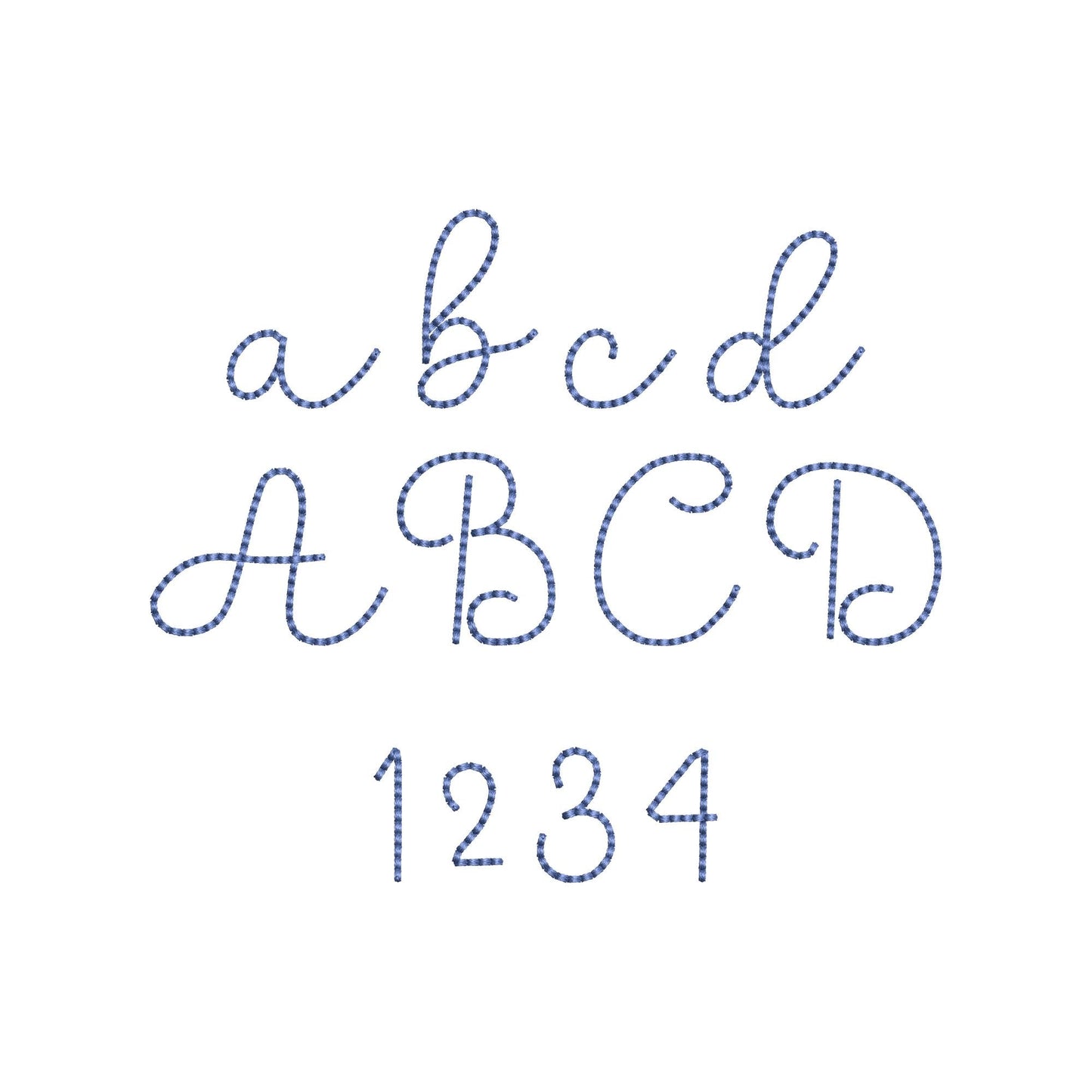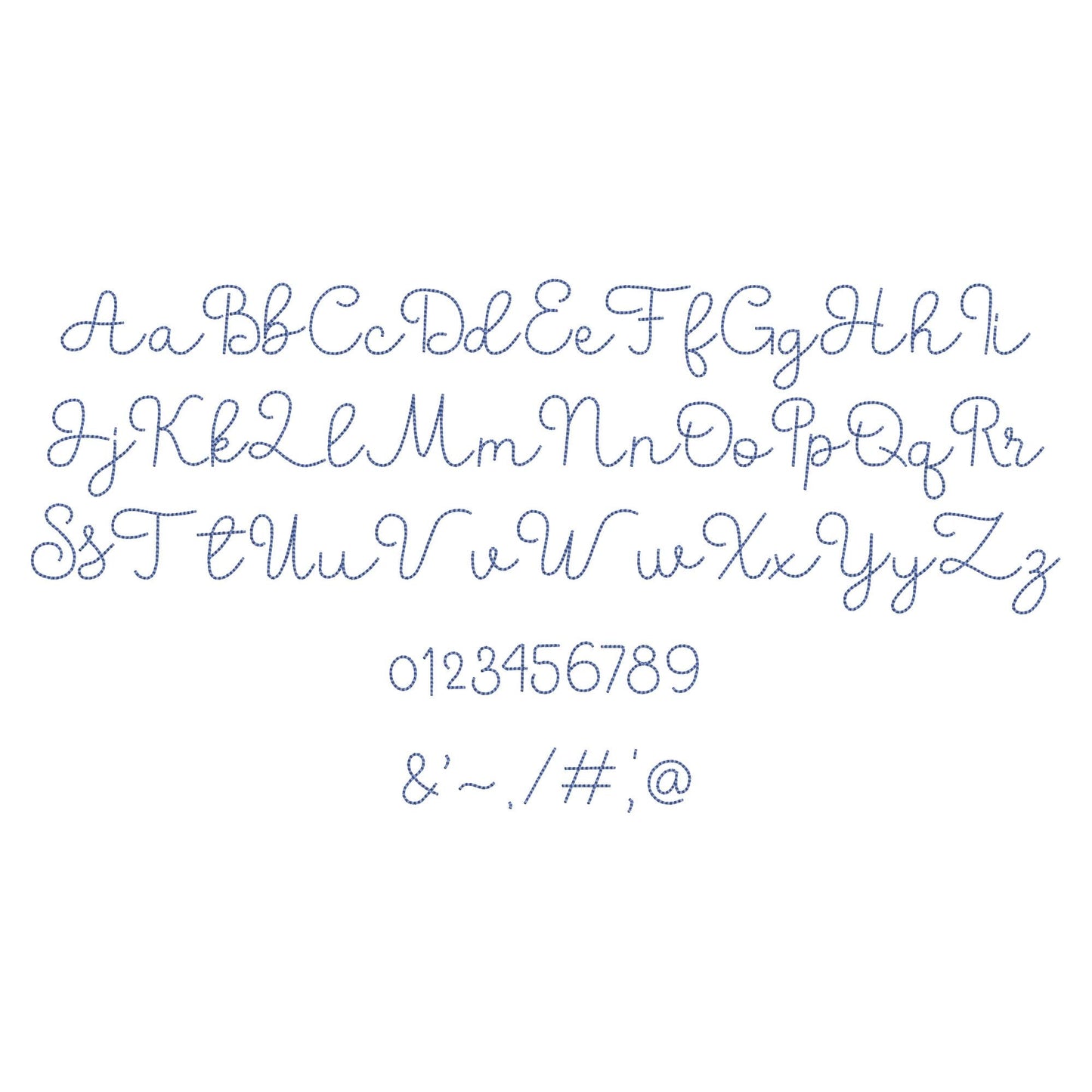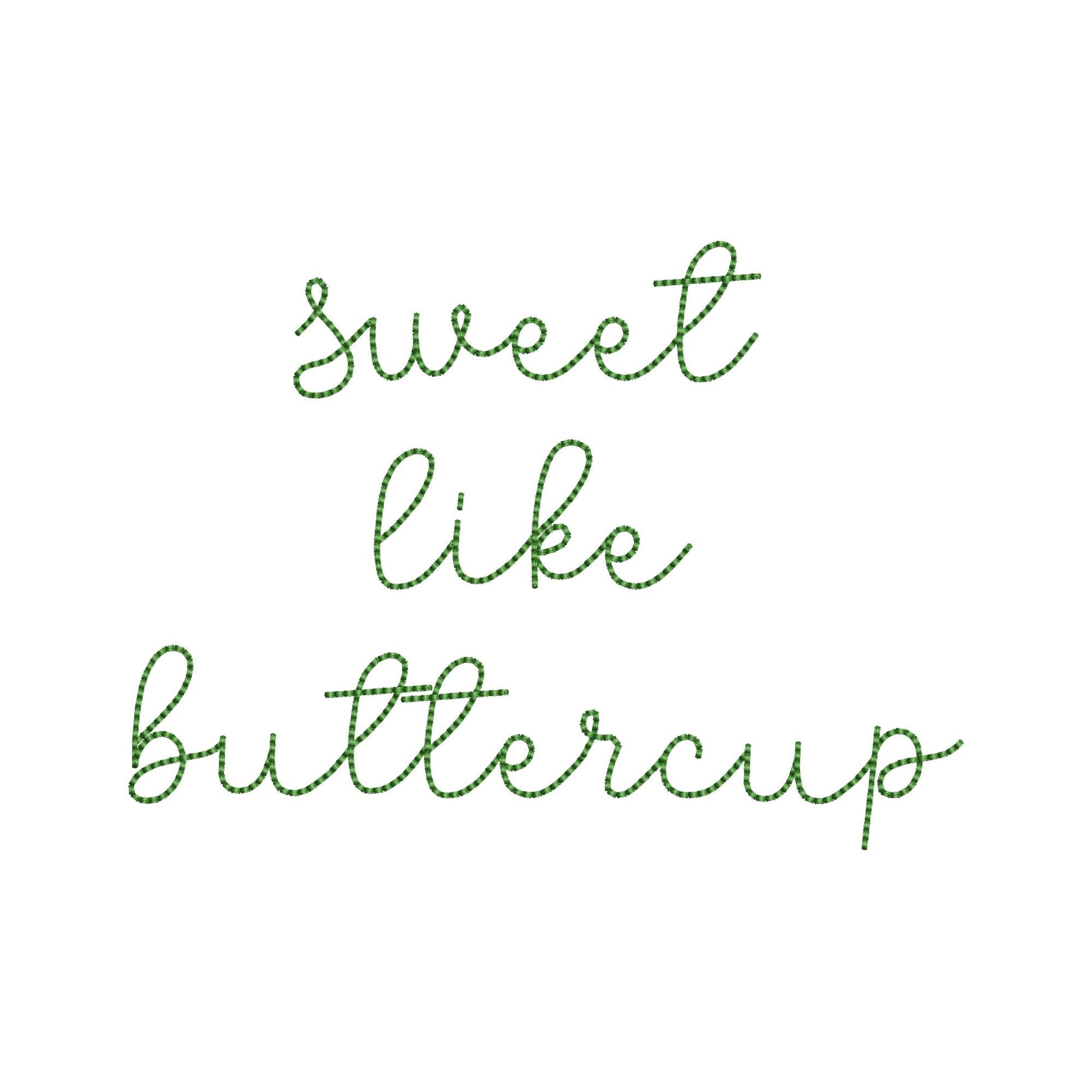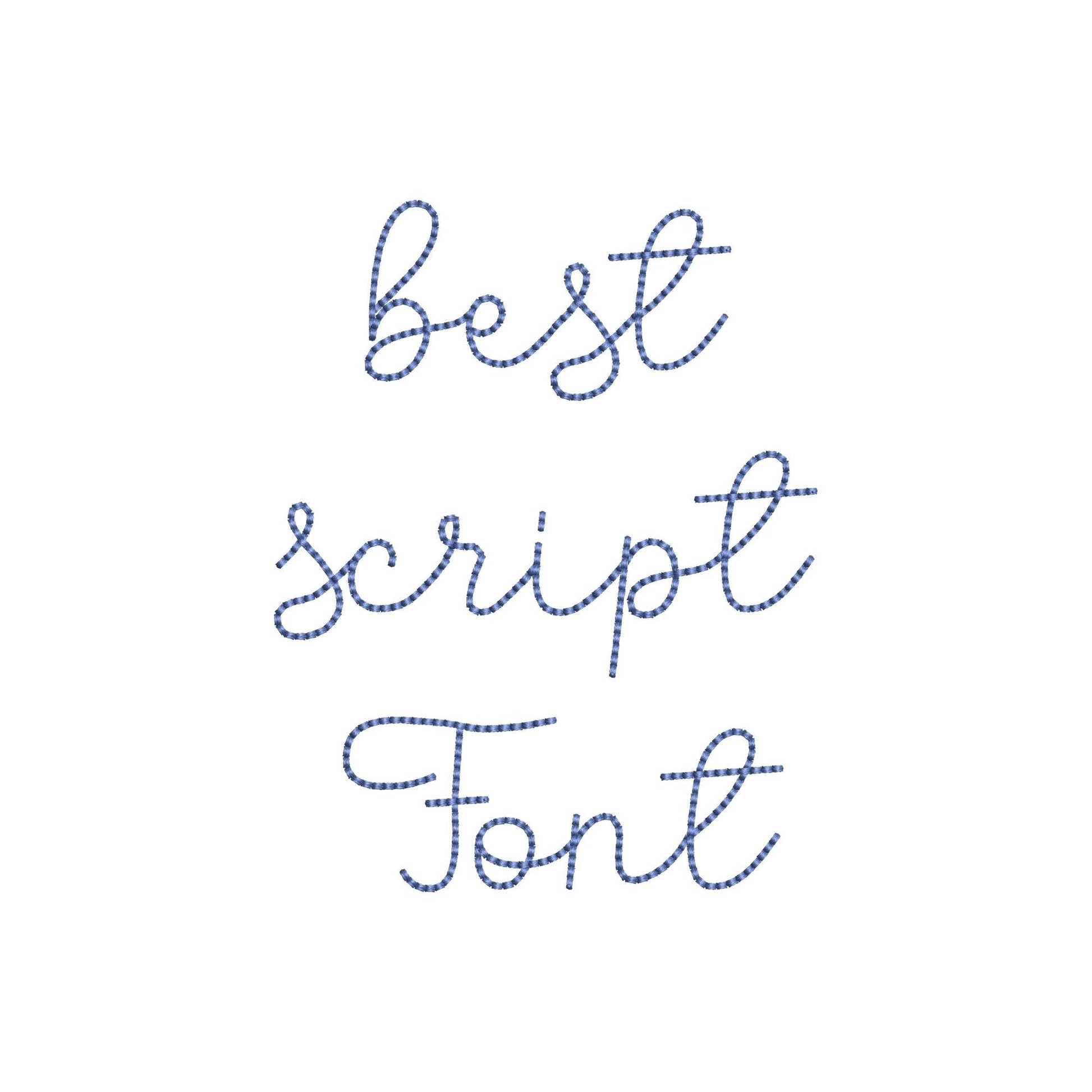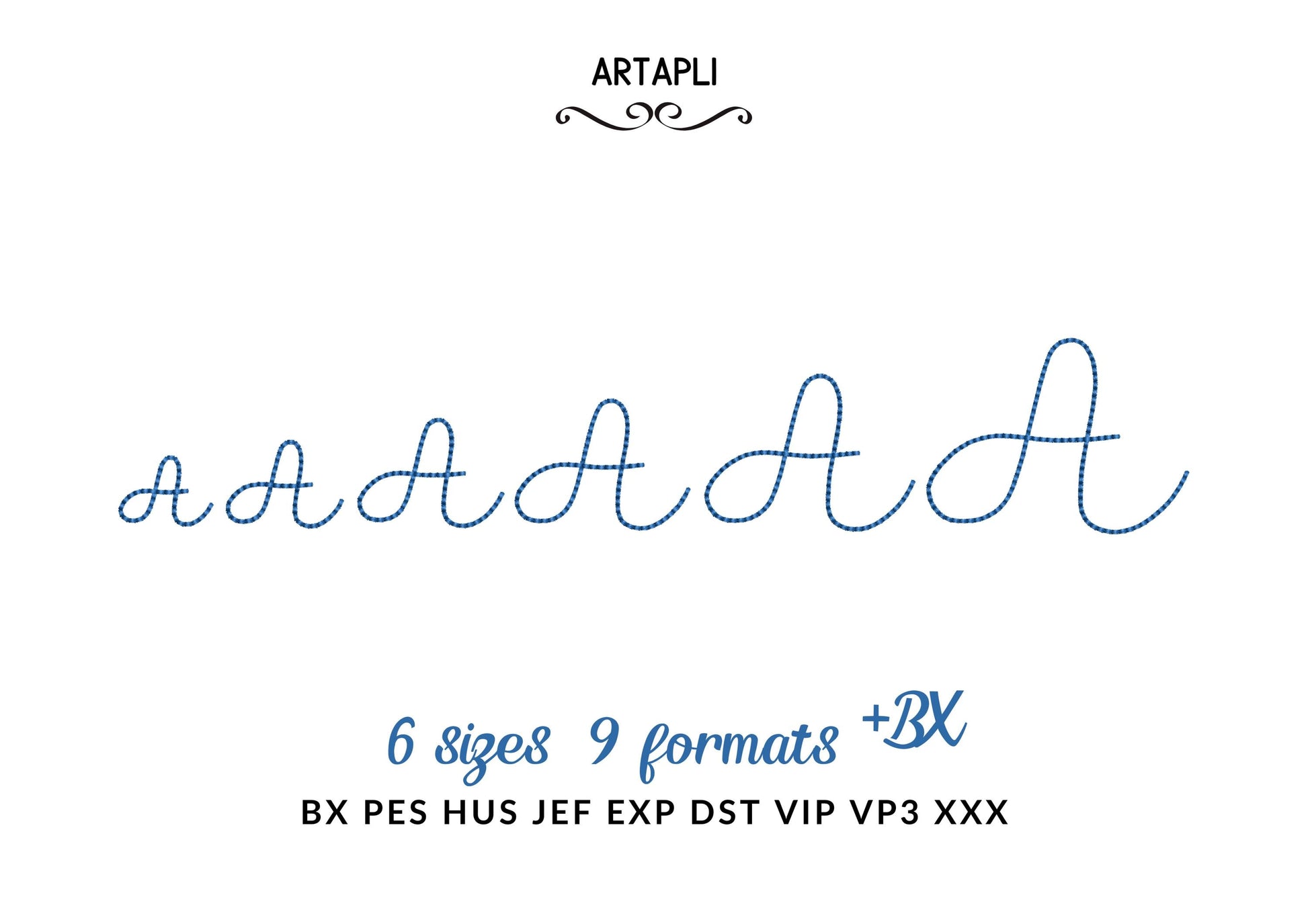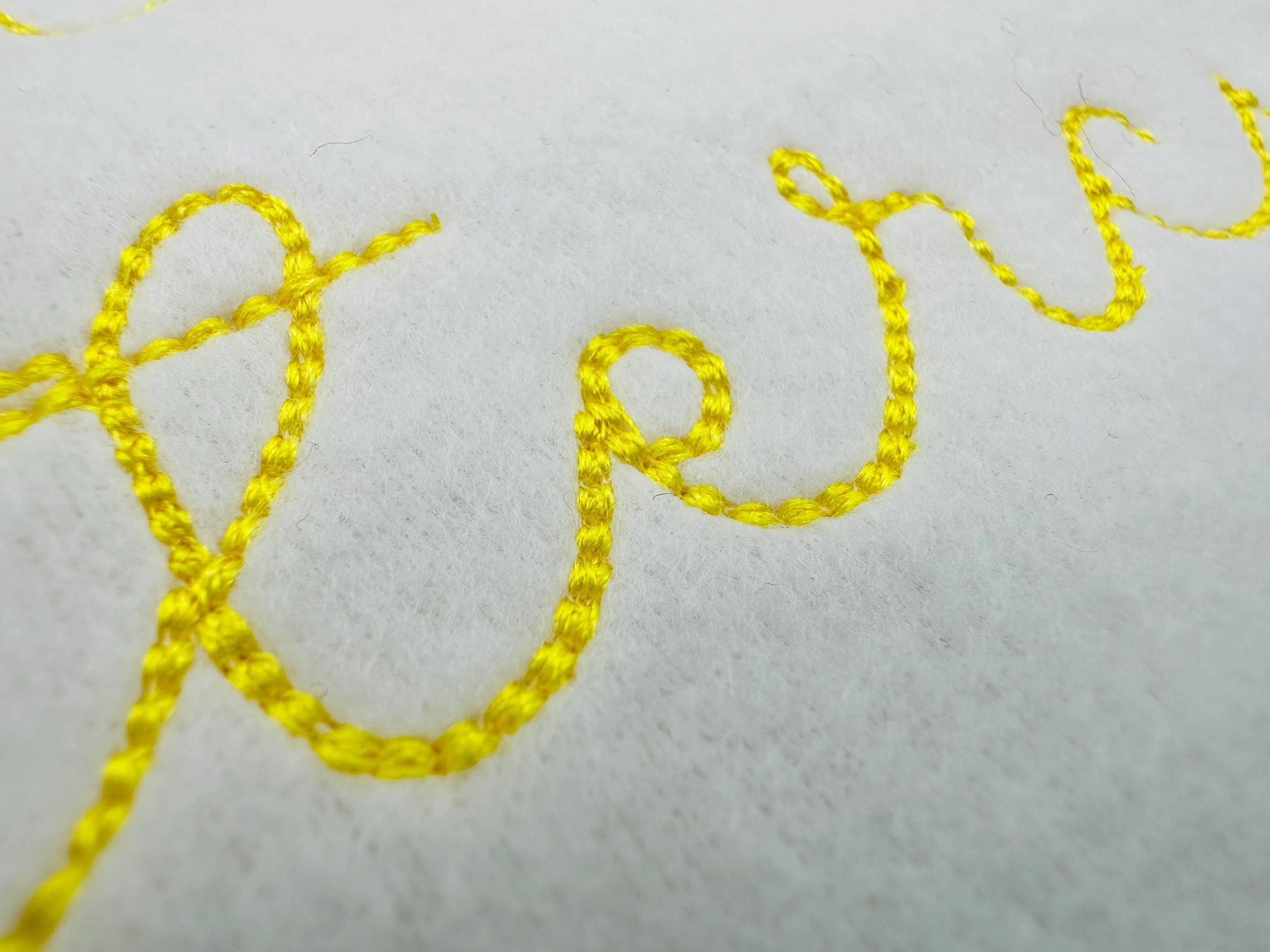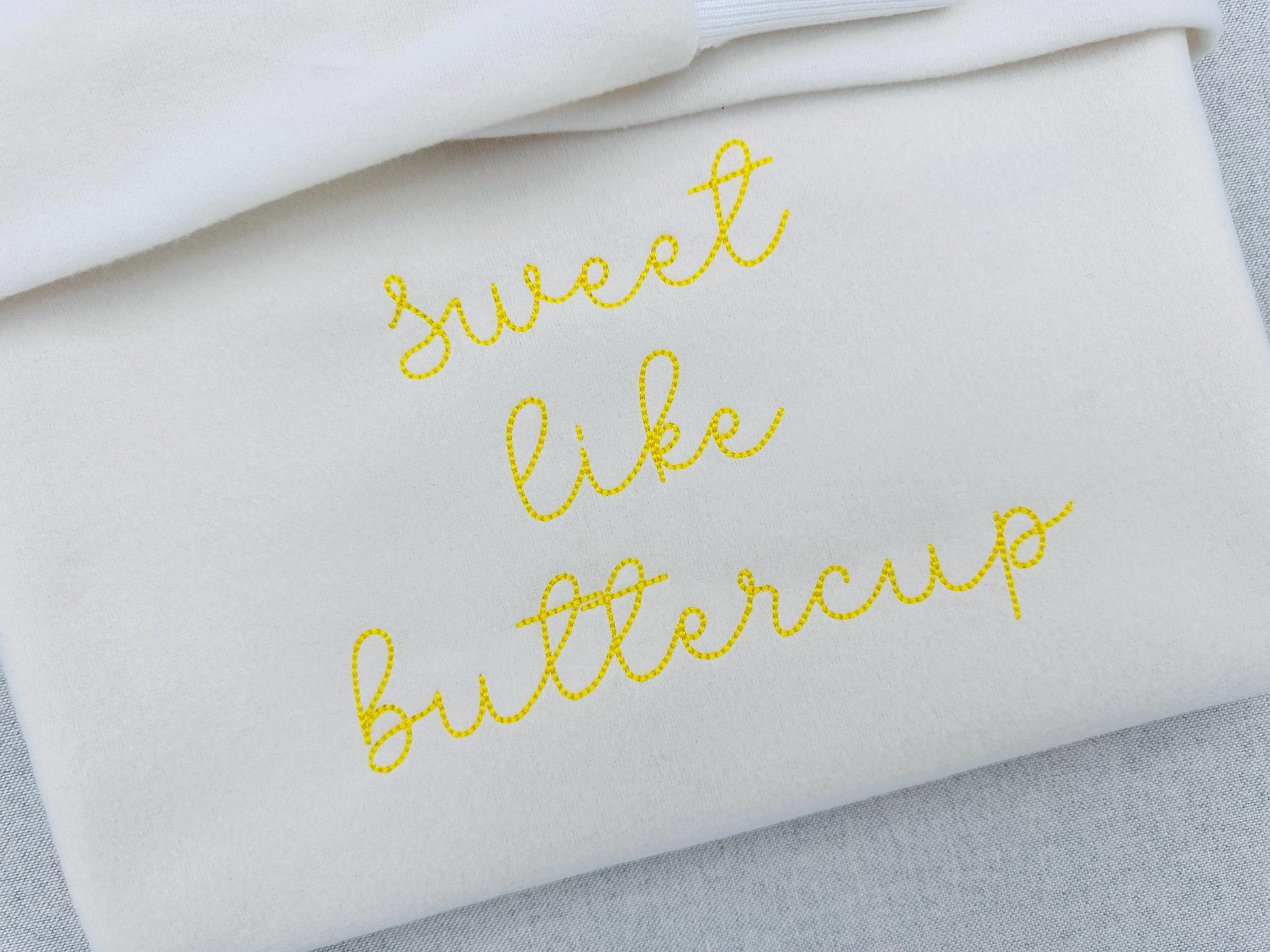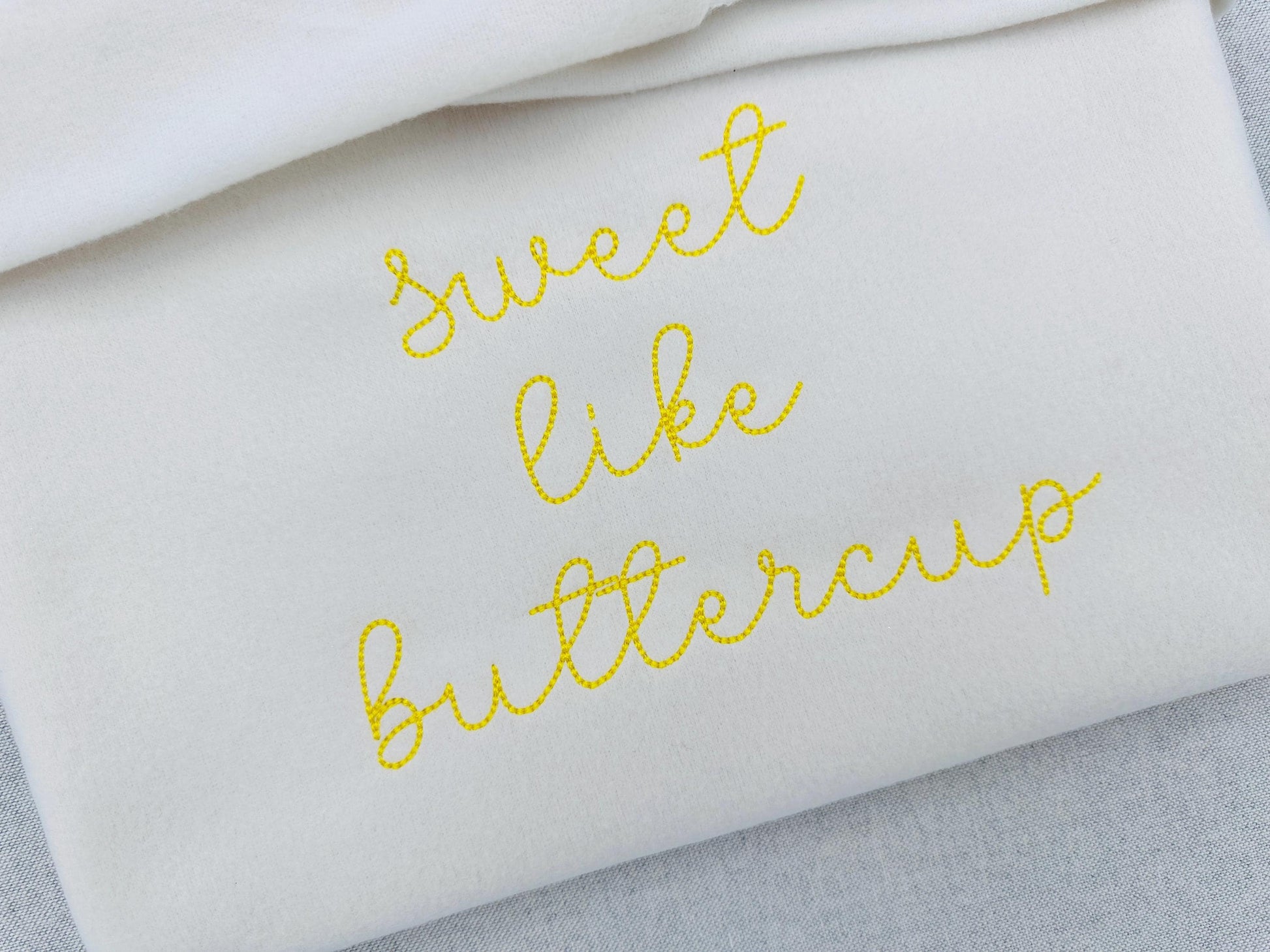
Or click to open the linkA handwritten script font in a raised bean stitch. Sweet for baby and kids' names, monograms and small gifts.
The letters come in six sizes: 0.8, 1, 1.2, 1.5, 1.8 and 2.2 inches. A slightly raised bean stitch gives the letters a soft handmade look. Includes uppercase and lowercase letters A to Z, numbers 0 to 9 and punctuation.